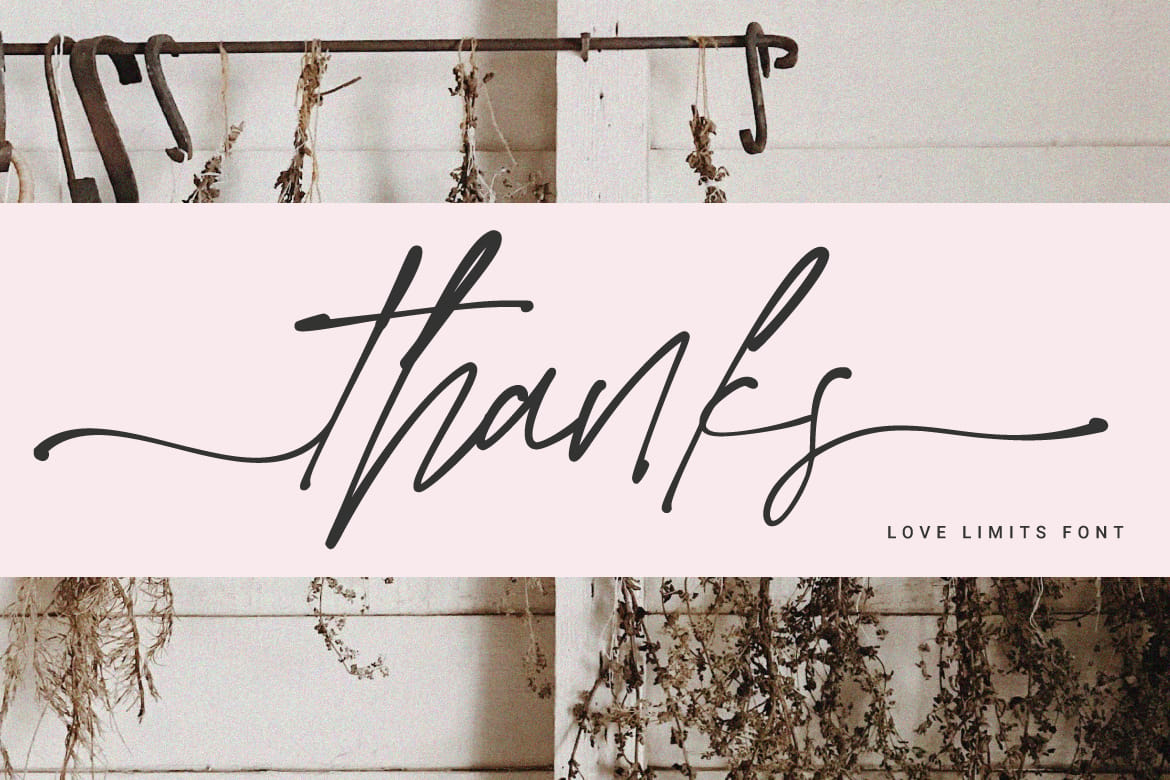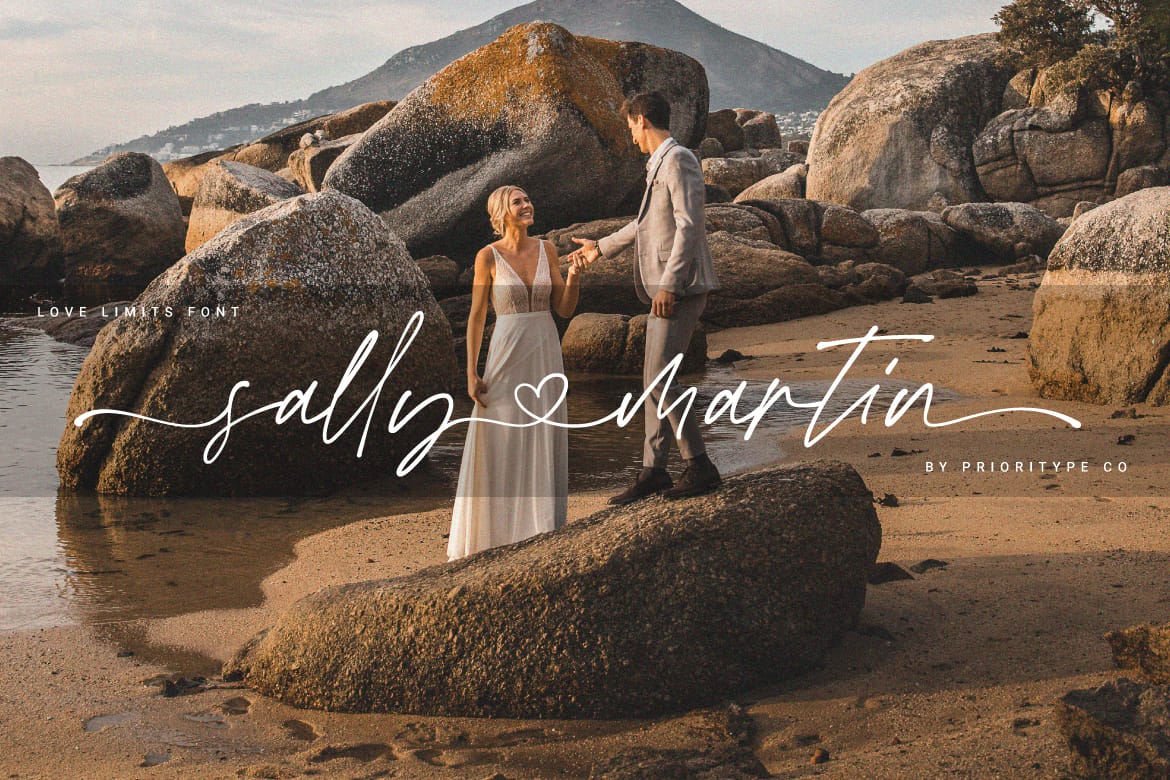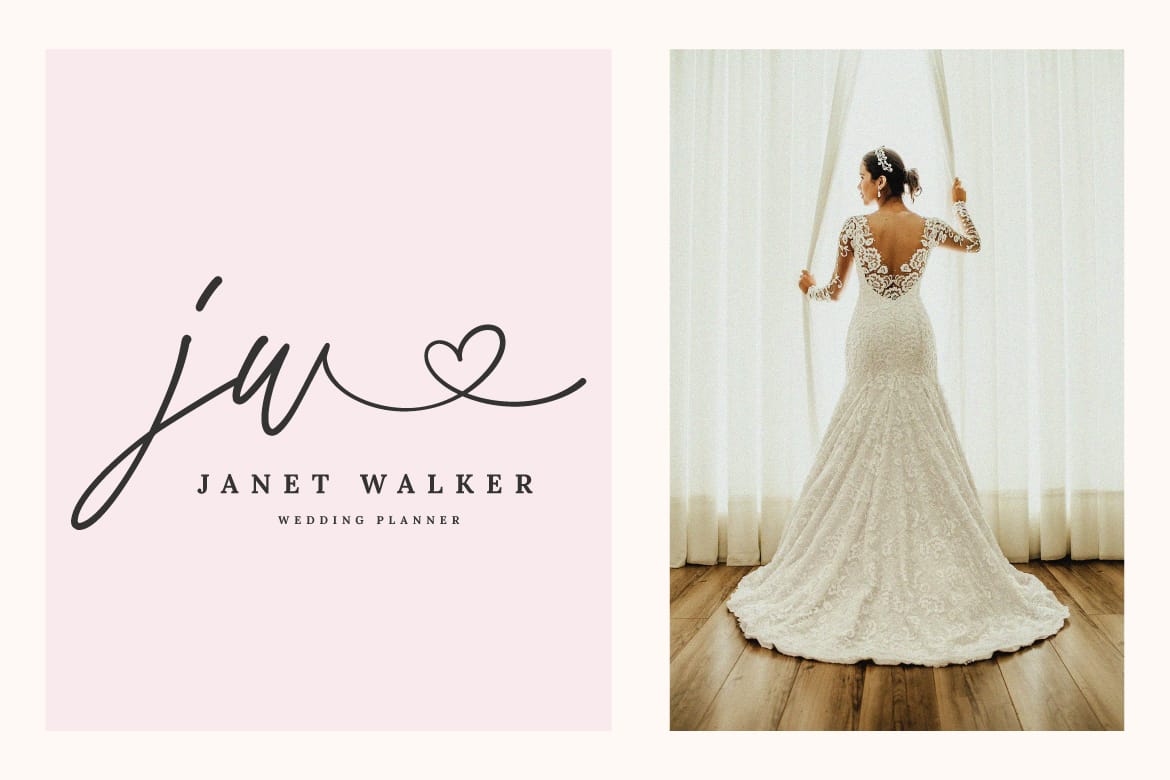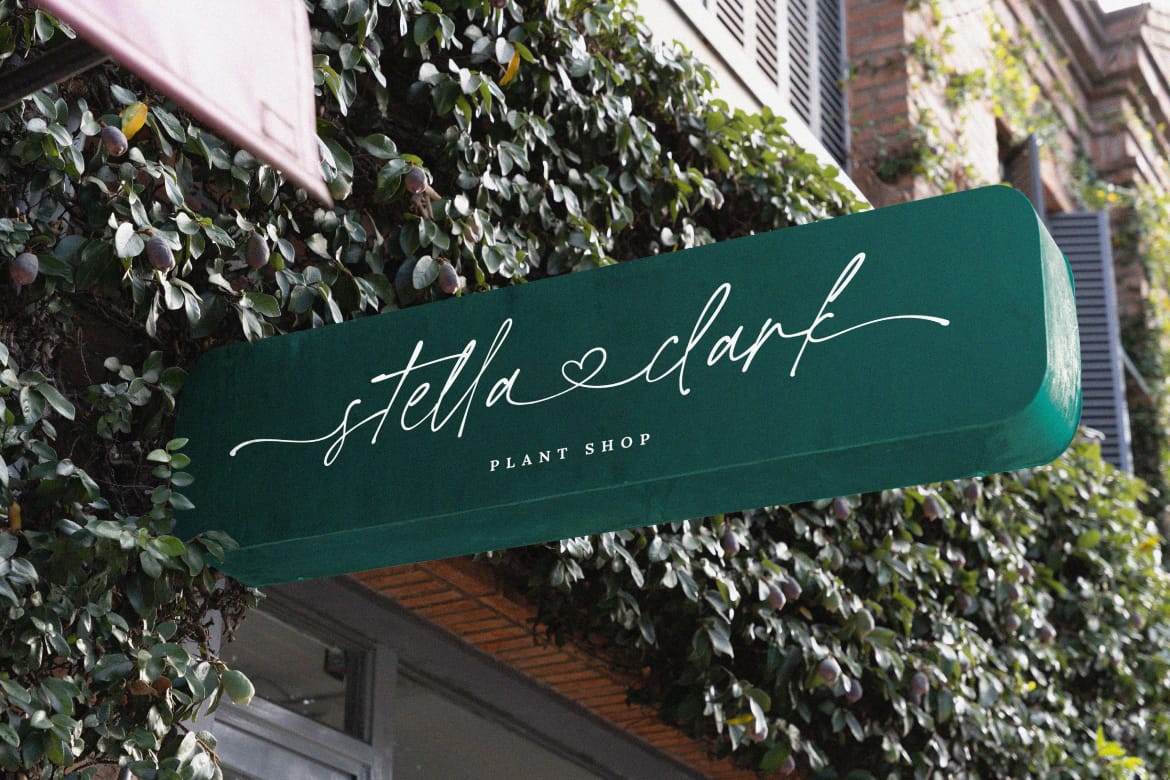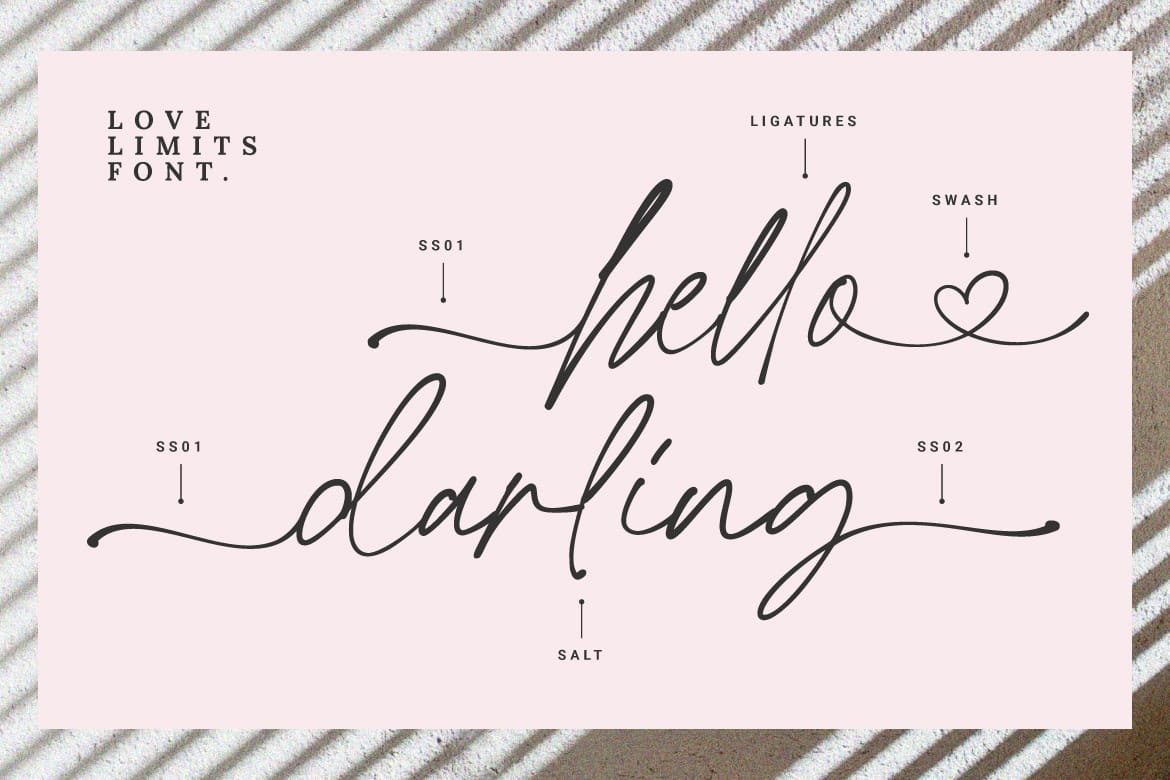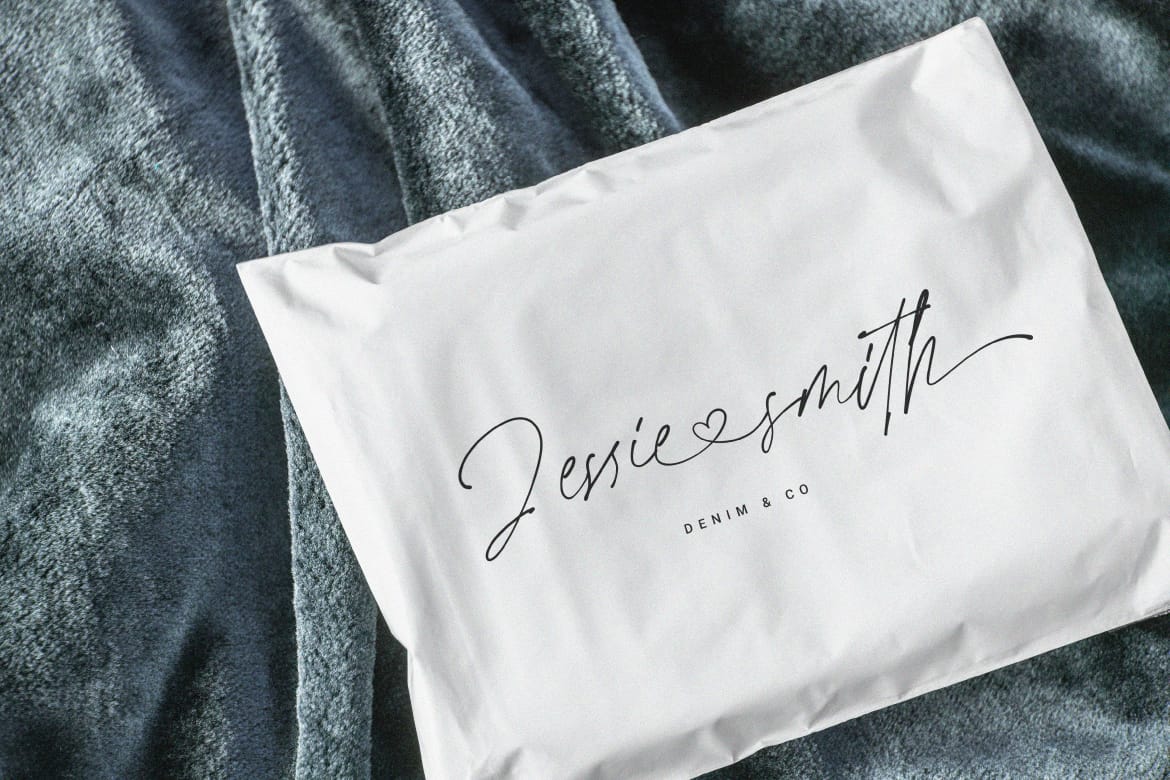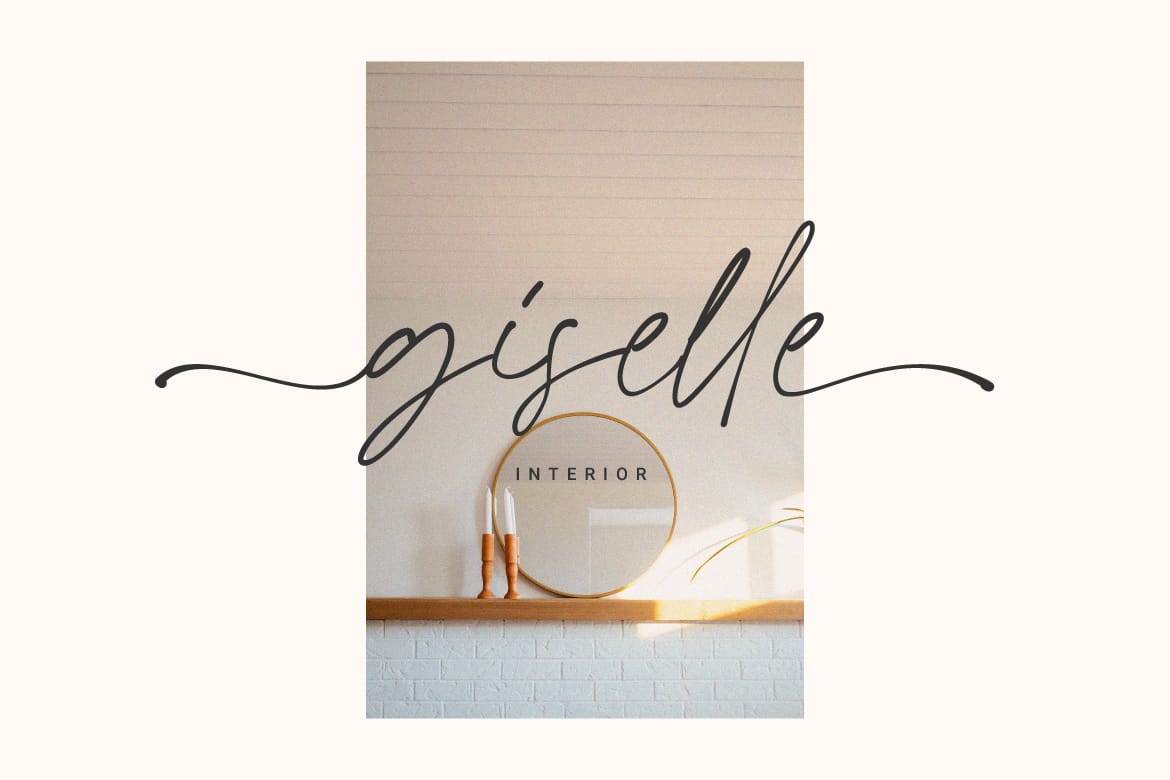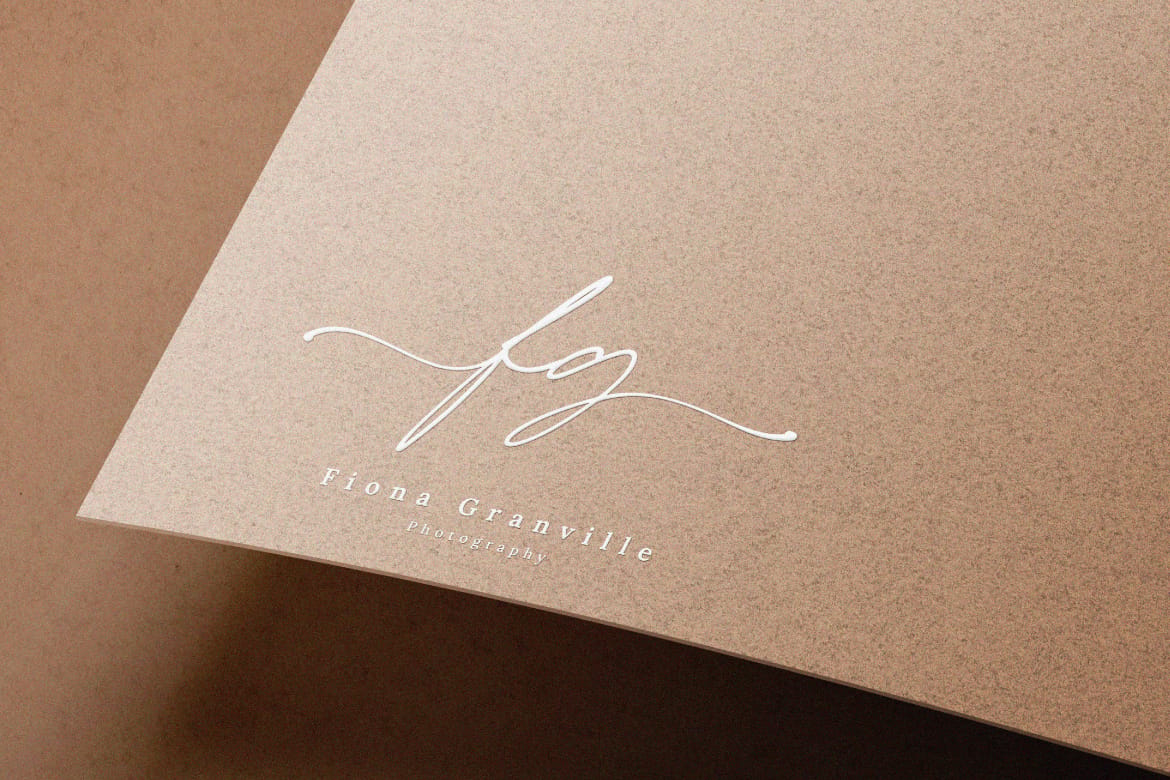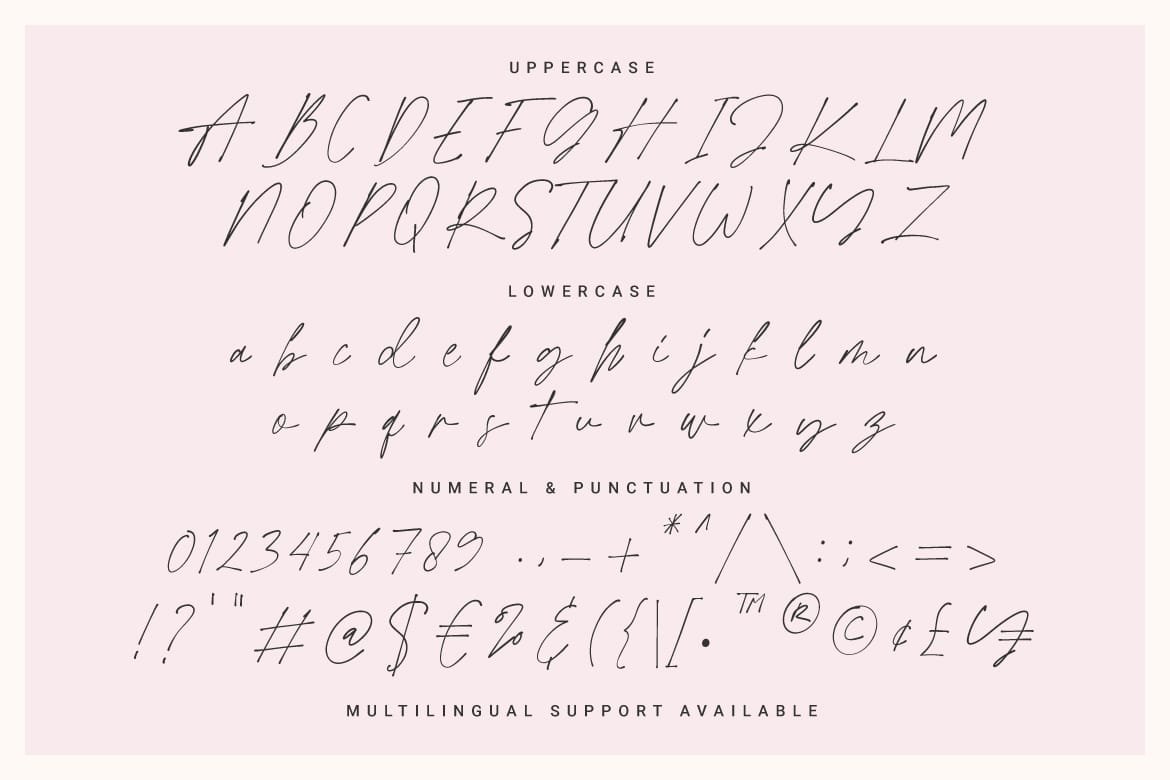
Love Limits - Lovely Stylish Font by Prioritype Co.
Stylish script fonts are here again to accompany your design projects. Equipped with unique alternative characters and ligatures that make it more natural. Suitable for branding, logotype, wedding invitations and others.
Features: Uppercase, Lowercase, Numeral, Punctuation, Multilingual, Ligatures & Alternates.
- Natural ligatures and alternates
- Lovely script for weddings and brands